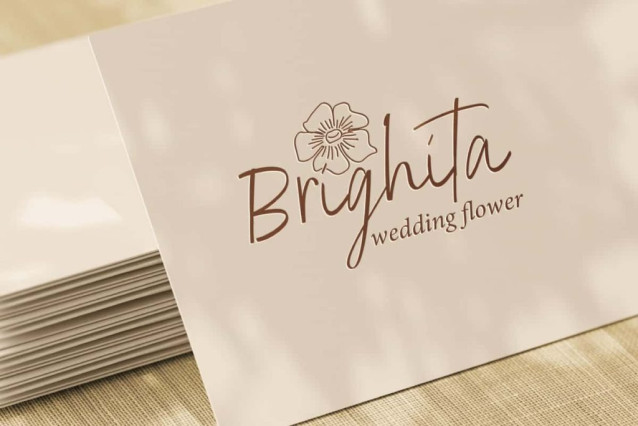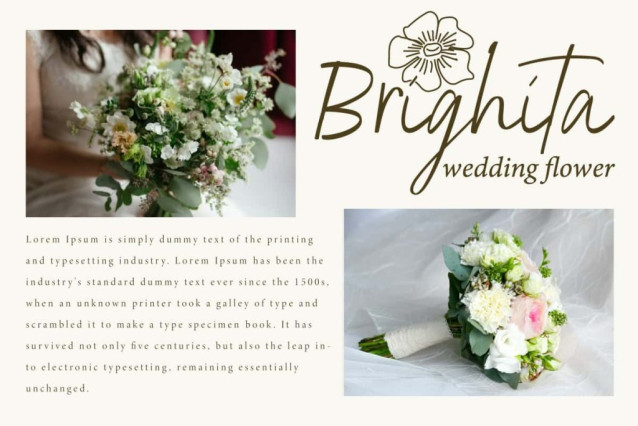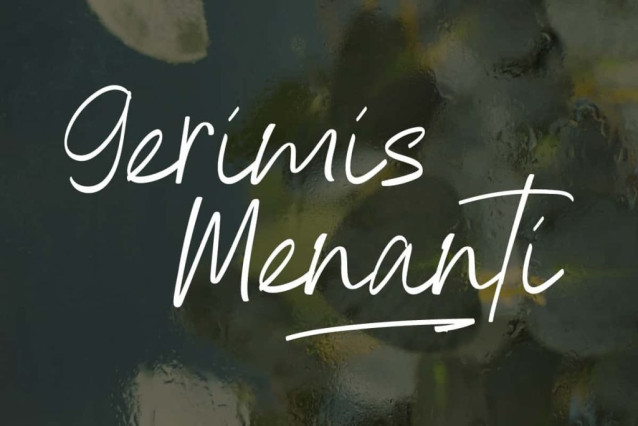
Gerimis Menanti Font
Gerimis Menanti Font is a fresh signature handwriting font with a casual touch, making it look like a natural handwriting. Perfect for banners, blogs, brochure, covers, custom mug, flyer, greeting card, headers, label, logos, mockup, social media post, stationery, sticker, template, title, quotes, website, and much more.
Gerimis Menanti Font includes a complete set of Basic Uppercase and Lowercase Characters, Numbers, Symbols and Swoosh. You can easily combine different characters to create the look you want! Use this font for accessories and gifts, author, boutique, fashion, florist, graphic designer, handicraft, home furniture, photography, pottery, wedding, writer, etc.